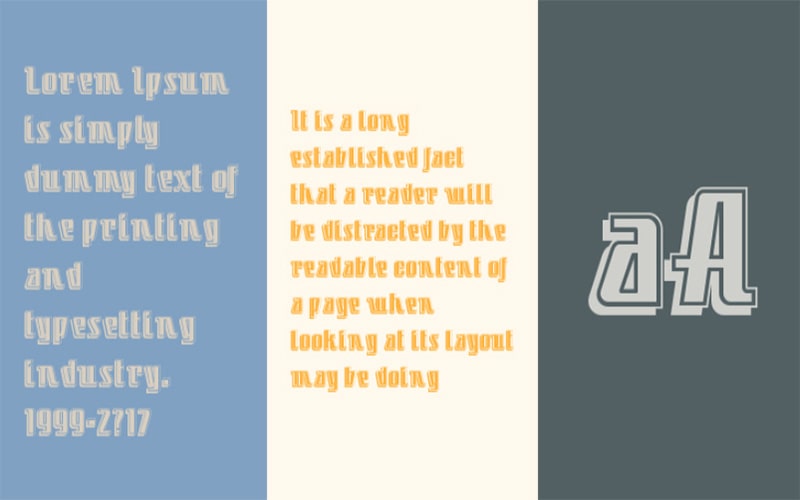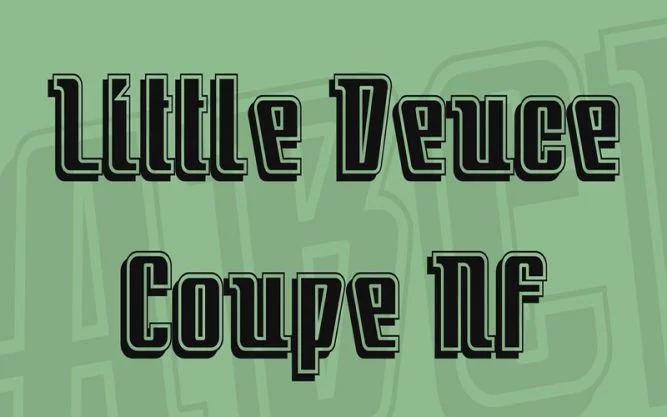
Little Deuce Coupe Font is a free shadow and displays a typeface family. The standard font was created by Nick’s Font. This shadow font is very creative and adds an element of art and fun to the many designs.
The free font family contained only one weight. This font is inspired by the lowercase letters of the Ray Larabie work called Andoval. This font family is completely a royalty-free decorative typeface.
This font is ideal for multiple purposes such as playtime, cartoon blocks, and display screens. In graphic design dropping shadow, the font is a visual effect that gives the appearance of shadows to an object.
The font gives the impression that the object is taken from its background. These fonts are effectively used as menus, templates, or website design elements. They are the most popular effects because they revolve around many icons.
Most text labels use drop shadow fonts for icons on the desktop. This font creates an effect that distinguishes a text from any color background. The designers can enhance the realistic effect of these fonts by softening the shadow edges of the fonts.
Its shady and 3D effects add words to the character and create intrigue. This is one of the most popular is Drop Shadow Fonts.